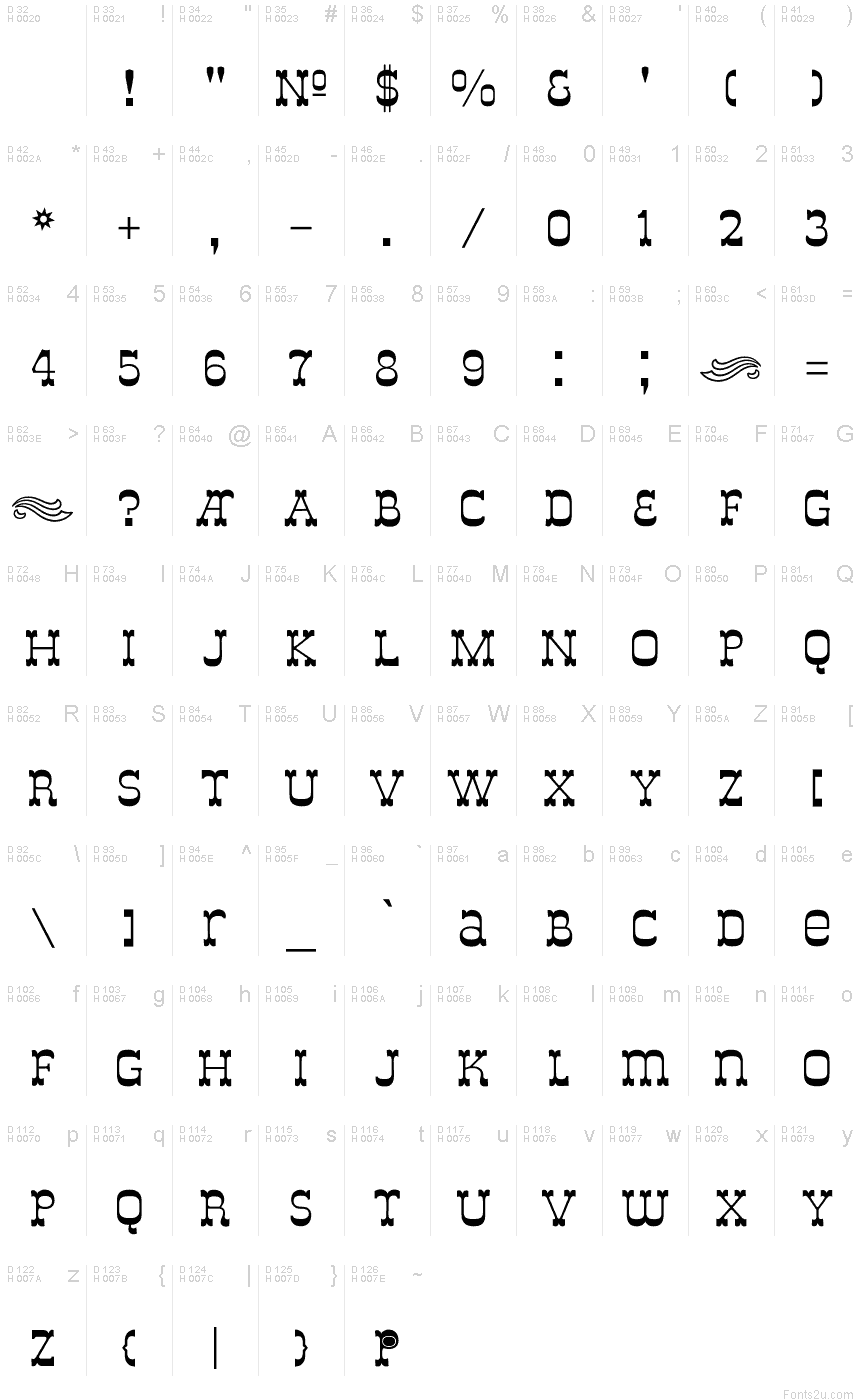
DeLouisville Bold
DeLouisville Bold font by James Arboghast - S E N T I N E L T Y P E is a free western display typeface with a playful, sideshow swagger. Its condensed shapes, stout slab-like feet, and curled, hooky details feel like vintage carnival posters and old fairground signage—bold, legible, but with a mischievous twist. The rhythm is tight and bouncy, so words lock together like wooden letter tiles while still reading clearly at a glance.
Using DeLouisville Bold, you can give rodeo flyers, circus posters, BBQ menus, retro product packaging, craft beer labels, and themed event branding a strong nostalgic kick. This free font shines at large sizes where its quirky curves and chunky strokes can really show off. For supporting text, pair it with a clean, modern sans-serif and let DeLouisville handle the loudest headlines.
DE LOUISVILLE tuscan, from S E N T I N E L T Y P E designed by James Arboghast
Relive the spirit of 19th century America in whimsical upbeat style with De Louisville tuscan. Echoing the Victorian craze for lavish decoration, De Louisville captures the antique flavor of a music parlor with refreshing cartoon ambiance. Cute, bubbly curves evoke strawberries & cream, a frothy head of beer, or the lace trimmings of a fine young lady's skirt, in a light-hearted display face designed for contemporary use.
De Louisville is ideal for confectionary, 19th century Americana, toys & feminine subjects.
The De Louisville set features:
* De Louisville Regular for print
* De Louisville Bold for low resolution media
* De Louisville Small Caps companion font
* 23 extra characters, some with 'blind' counters